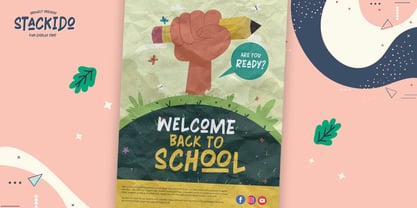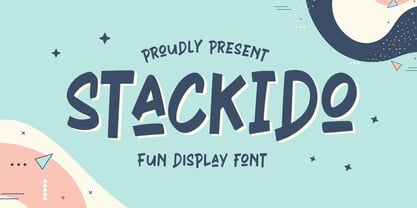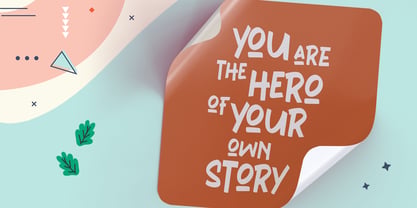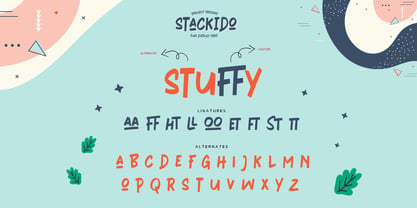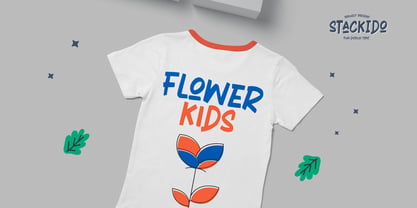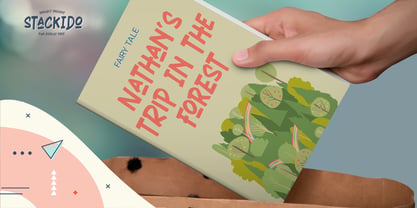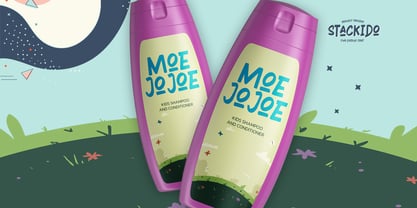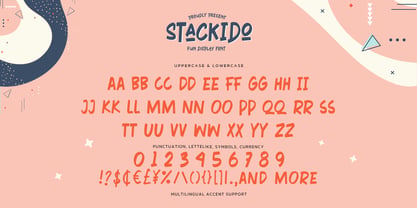
Stackido
by Almarkha Type
The Stackido Font Family was designed by Abdul Malik Wisnu and published by Almarkha Type. Stackido contains 1 styles. More about this family
Introducing Stackido, a fun, bold, and expressive display typeface designed to bring a playful yet powerful personality to your creative projects. With its chunky letterforms, dynamic shapes, and hand-drawn character, this font creates a strong visual impact while maintaining a friendly and energetic feel Perfect for logos, branding, posters, social media designs, packaging, apparel, stickers, greeting cards, headlines, invitations, badges, labels, and other eye-catching display designs.
Designers: Abdul Malik Wisnu
Foundry: Almarkha Type